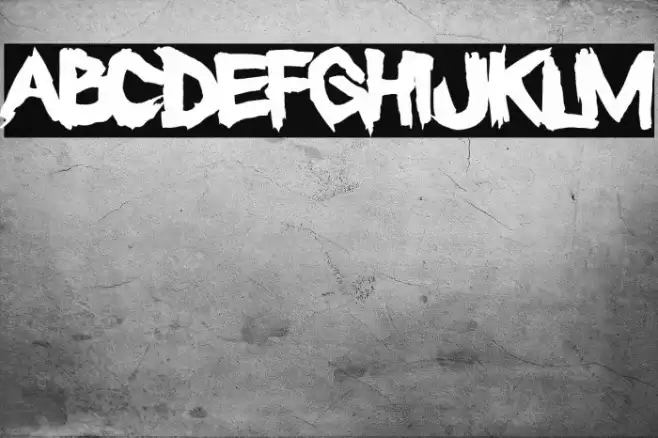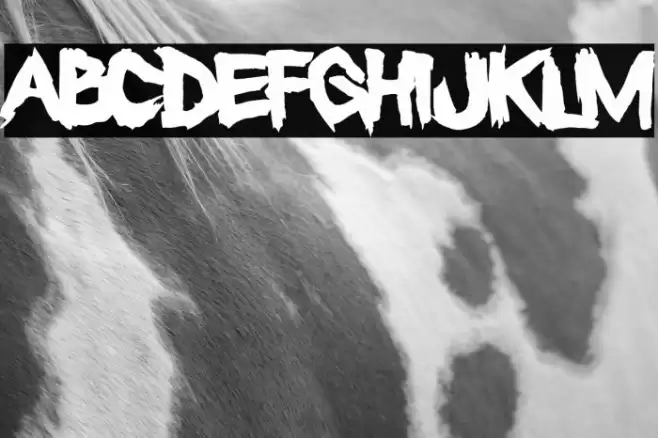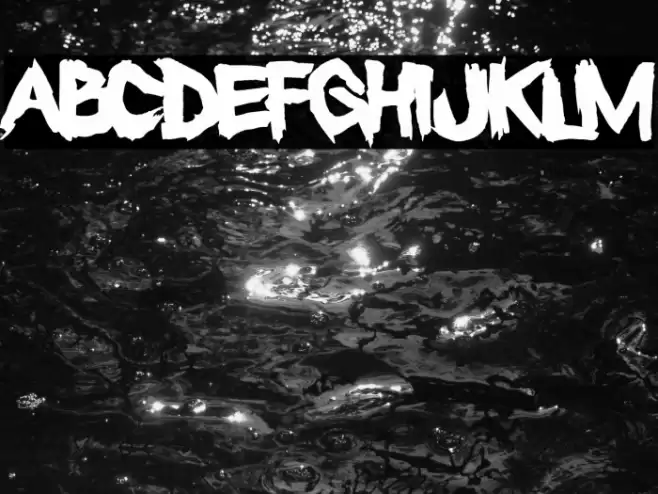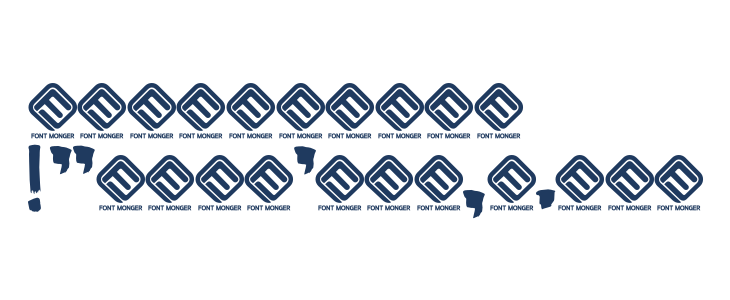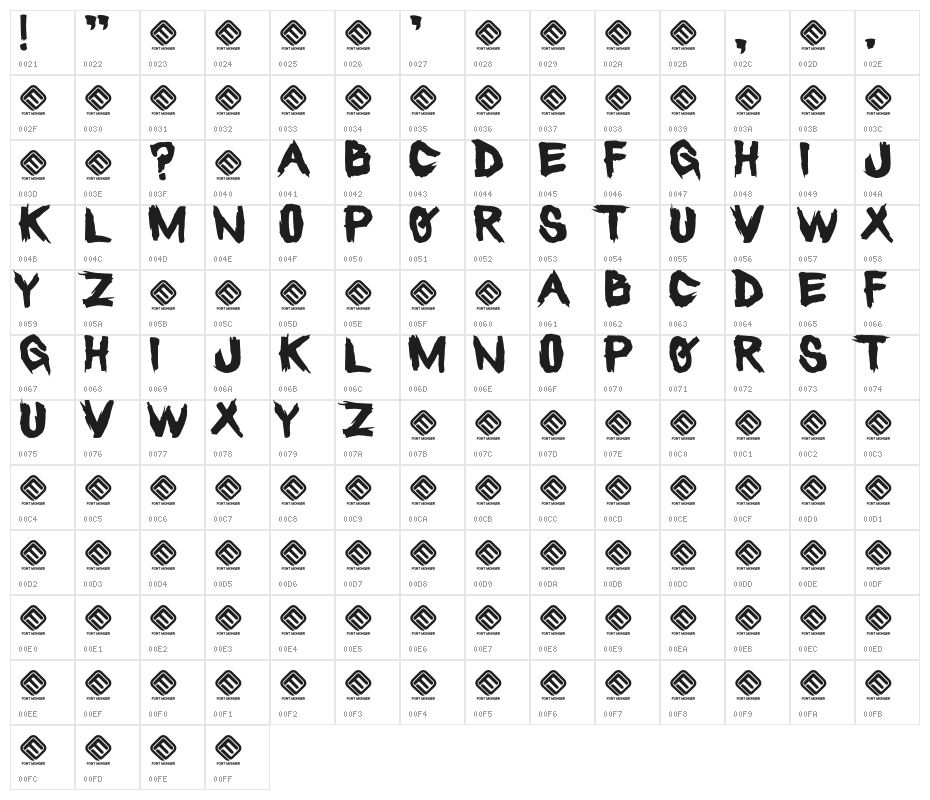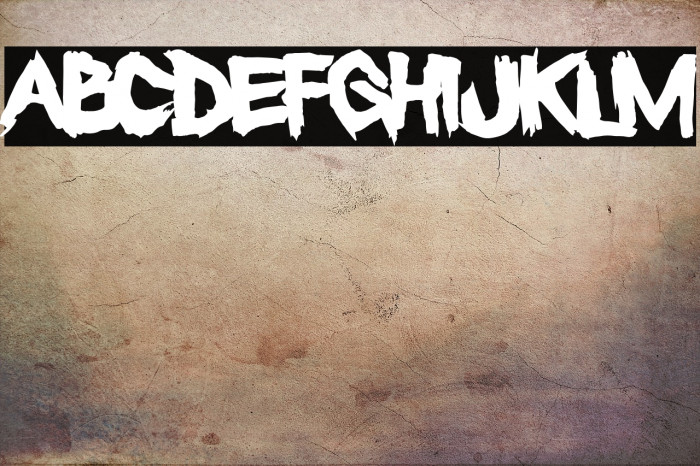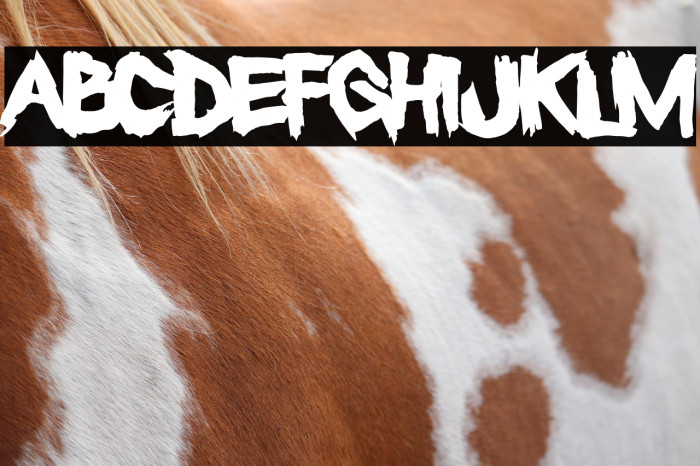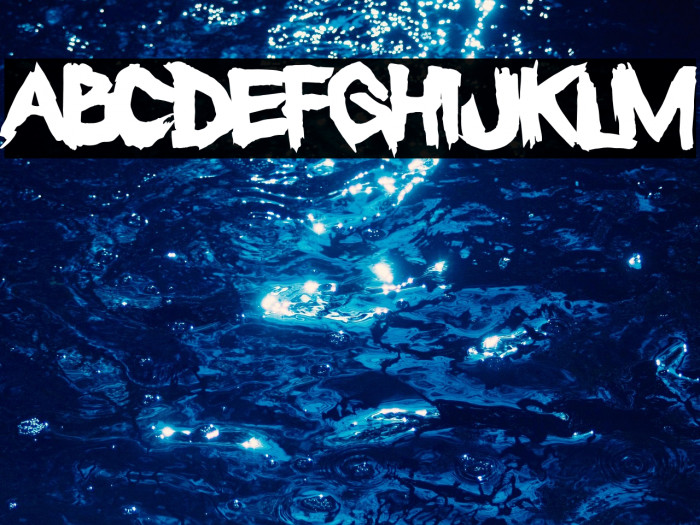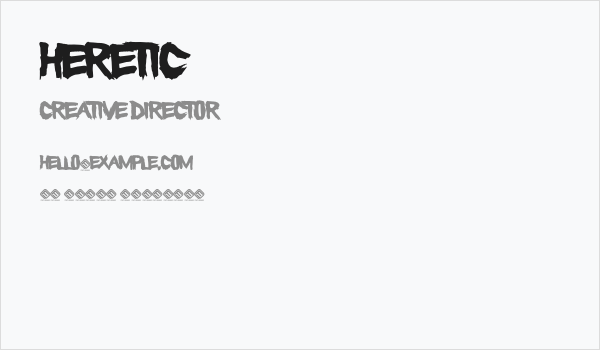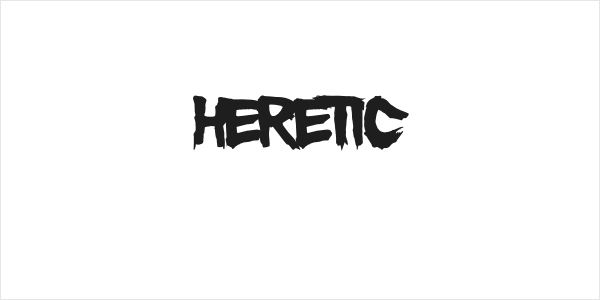
Heretic Font
Heretic Description
This font exhibits a bold, edgy style with a hand-painted appearance. The characters are irregular and jagged, giving a raw and rebellious feel. The uppercase letters are dominant and assertive, while the lowercase letters maintain the same rugged aesthetic. The numbers and special characters follow the same design, ensuring consistency throughout. The strokes are thick and uneven, contributing to a high contrast look that stands out. This font is ideal for projects that require a strong, impactful visual presence.
A bold, edgy font with a hand-painted, rebellious style from Uncategorized fonts.
- Font: Heretic
- Proposed Projects: Perfect for album covers, posters, streetwear branding, and any project needing a bold statement.
- Overall Style: Modern, Decorative